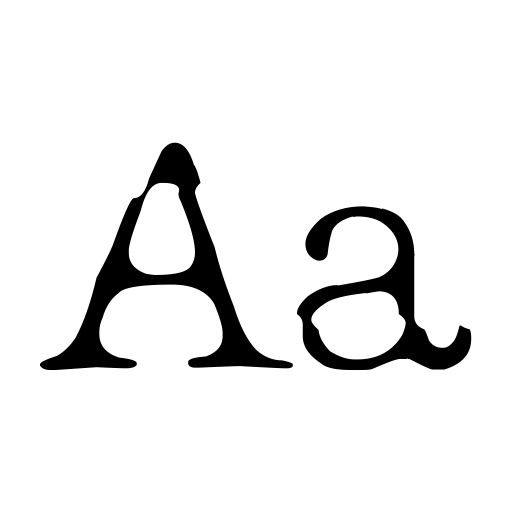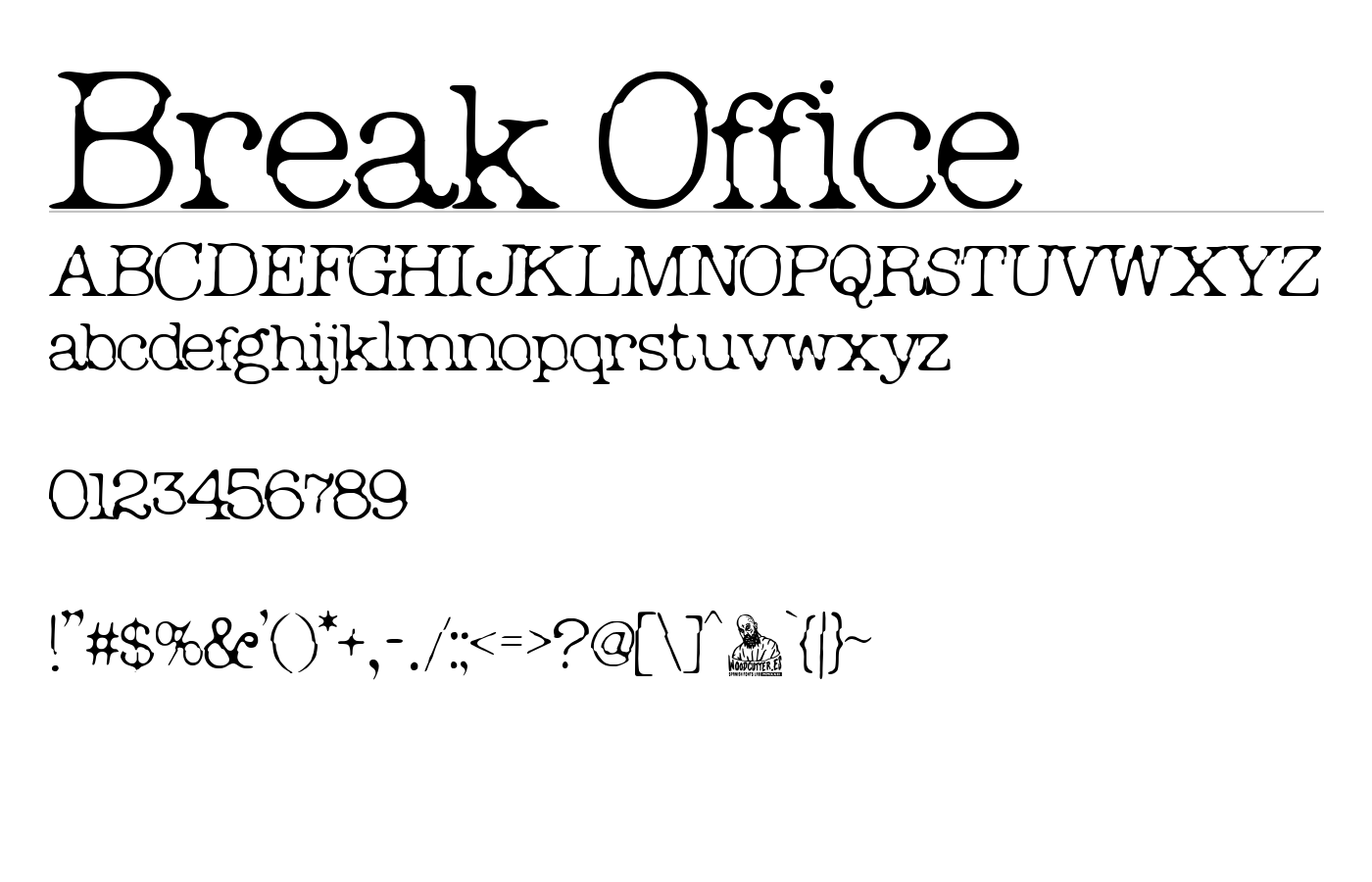
Break Office is a unique serif font with a hand-crafted, slightly distressed look that gives it character and charm. Its irregular strokes and rough edges create a vintage, industrial feel, making it ideal for creative projects, posters, and branding that aims to stand out with a quirky, old-fashioned style. This font works well for headlines and display use where a distinctive, artistic touch is desired.
Break Office Font
About Break Office Font